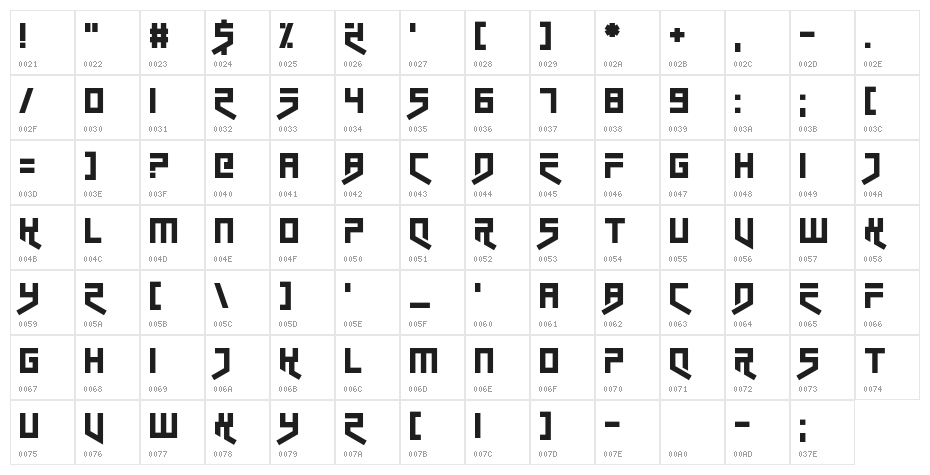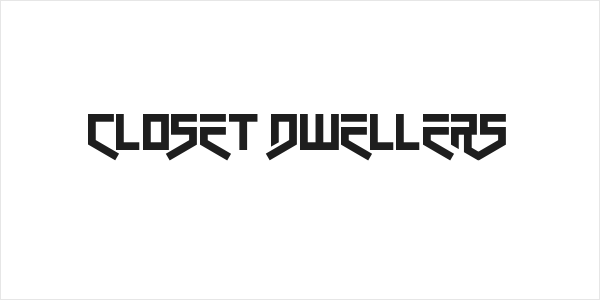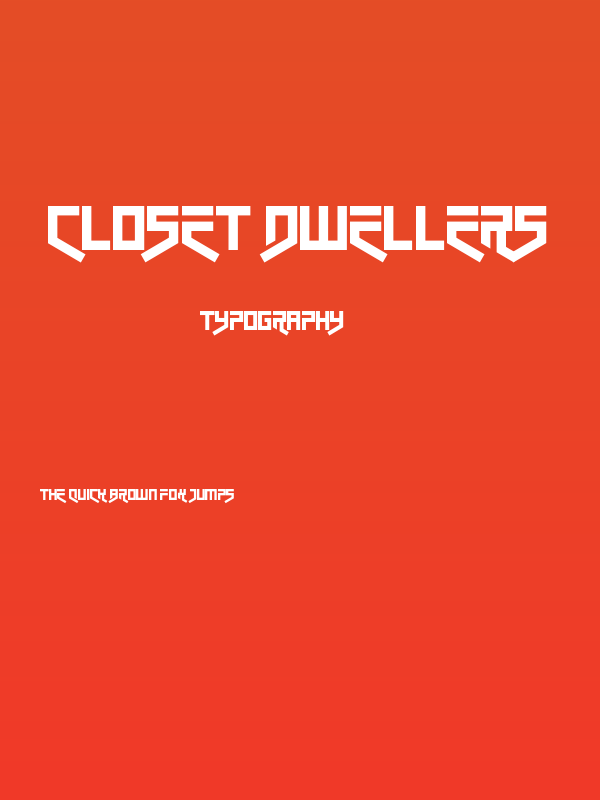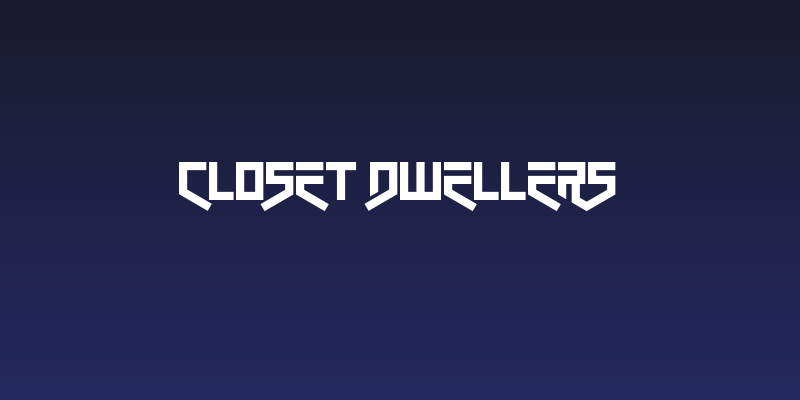
Closet Dwellers Font
Closet Dwellers Description
This font features a bold, geometric design with sharp angles and a futuristic aesthetic. The characters are constructed with thick, uniform strokes, creating a strong visual impact. The uppercase and lowercase letters maintain a consistent style, with angular cuts and a blocky appearance. The numbers and special characters follow the same design principles, ensuring a cohesive look across all glyphs. This font's unique style makes it stand out, with its modern and edgy feel, suitable for projects that require a bold statement.